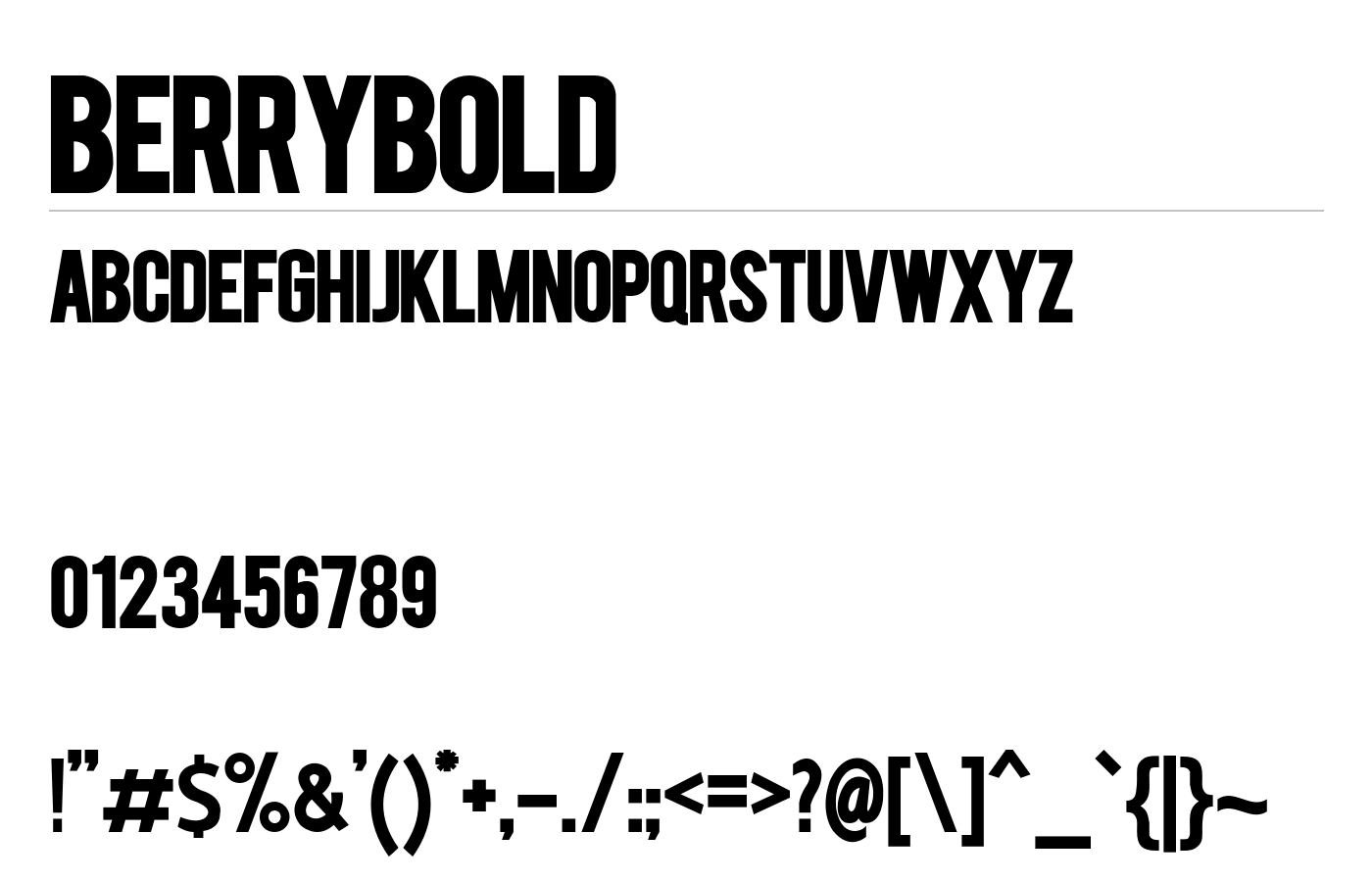
BERRYBOLD is a striking sans serif font characterized by its bold weight and condensed letterforms that command attention with their strong presence. Its high x-height and uniform, thick strokes create a modern, clean look that works perfectly for impactful headlines, logos, and branding where clarity and confidence are key. This font’s straightforward, no-nonsense style makes it ideal for use in advertising, posters, and digital media seeking a powerful and contemporary voice.
BERRYBOLD Font
About BERRYBOLD Font
| Font family | BERRYBOLD Font |
| Languages supported | Latin, Myanmar, Symbols |
| Designer | IJEM_SKULLPEN_FERDIANSYAH |
| Font subfamily | Bold, Condensed |